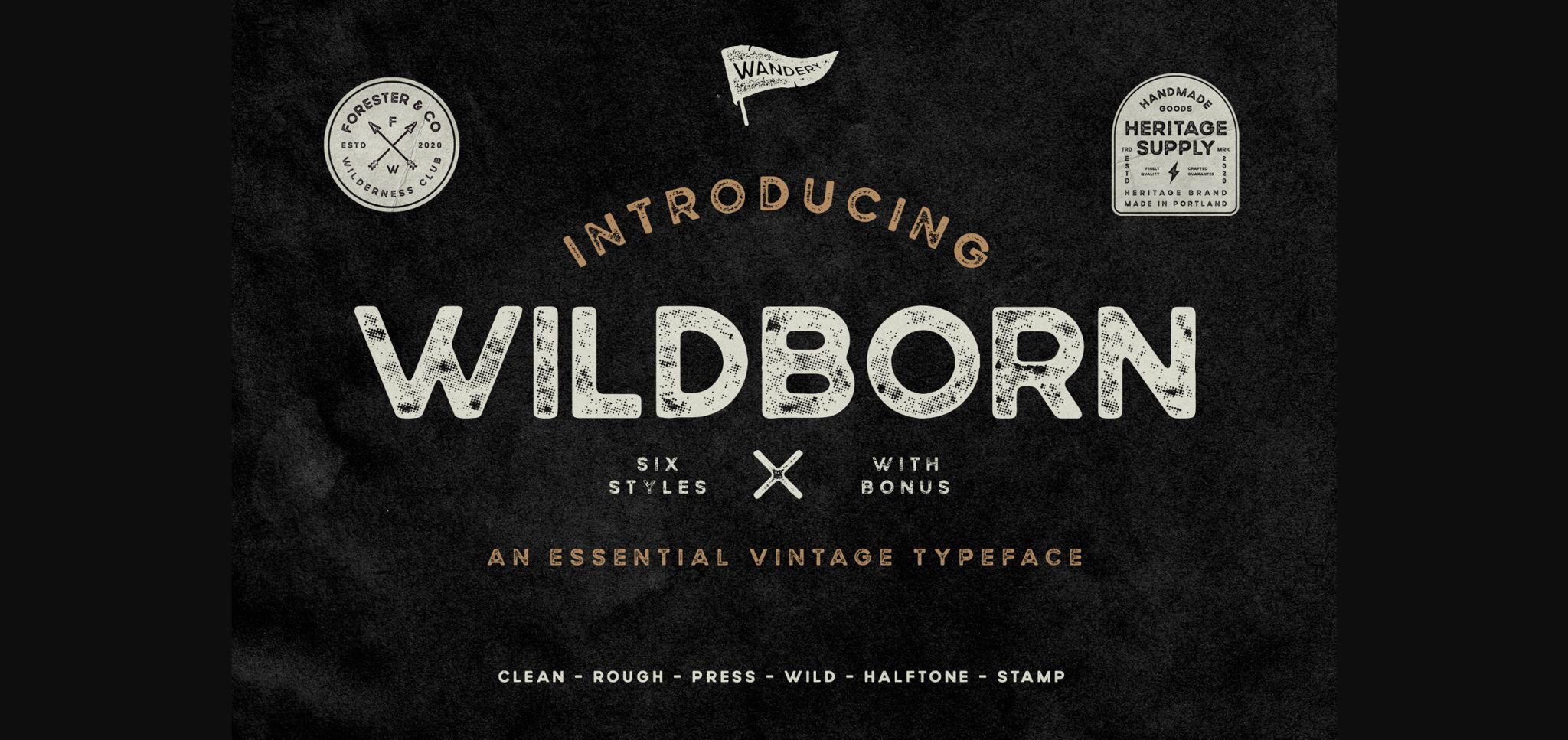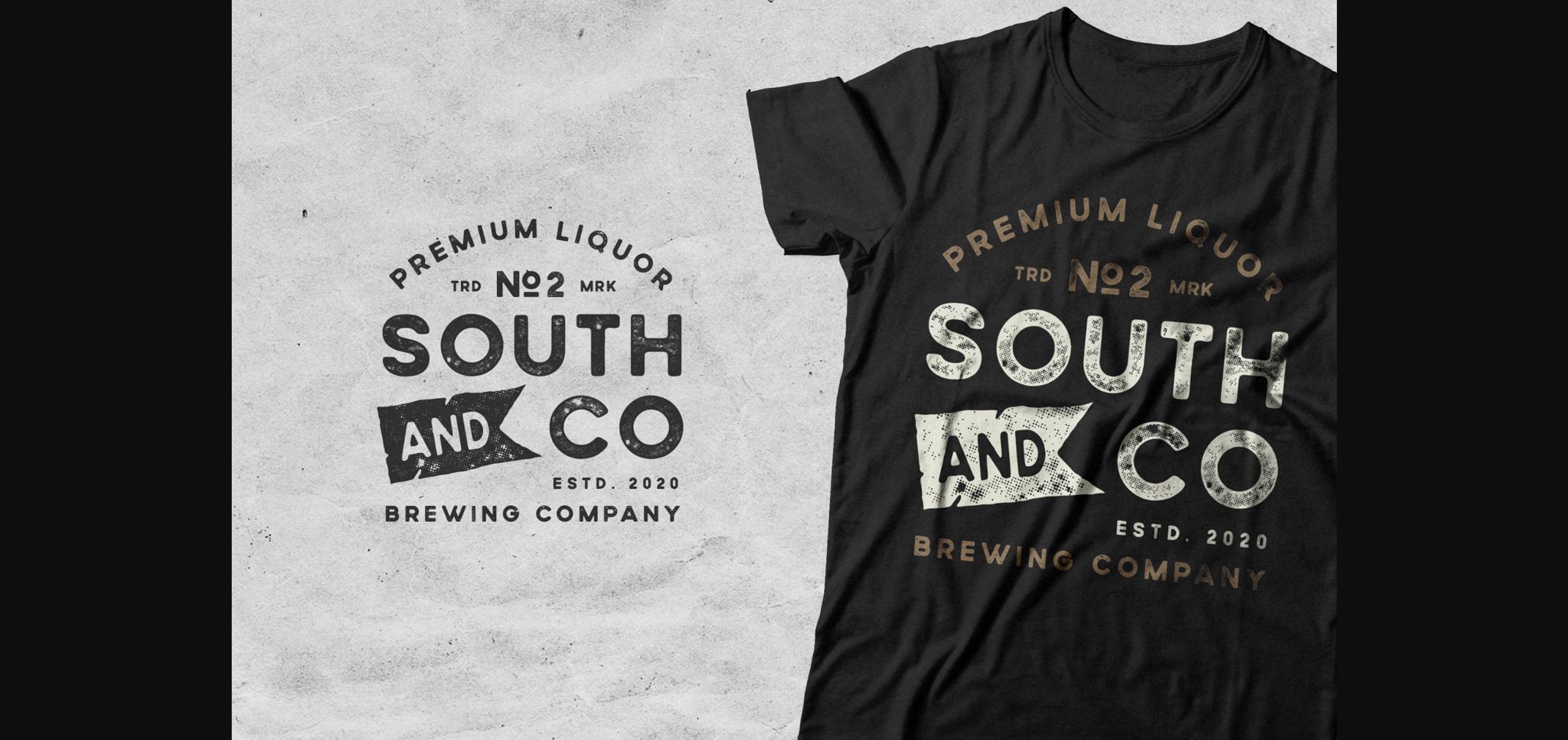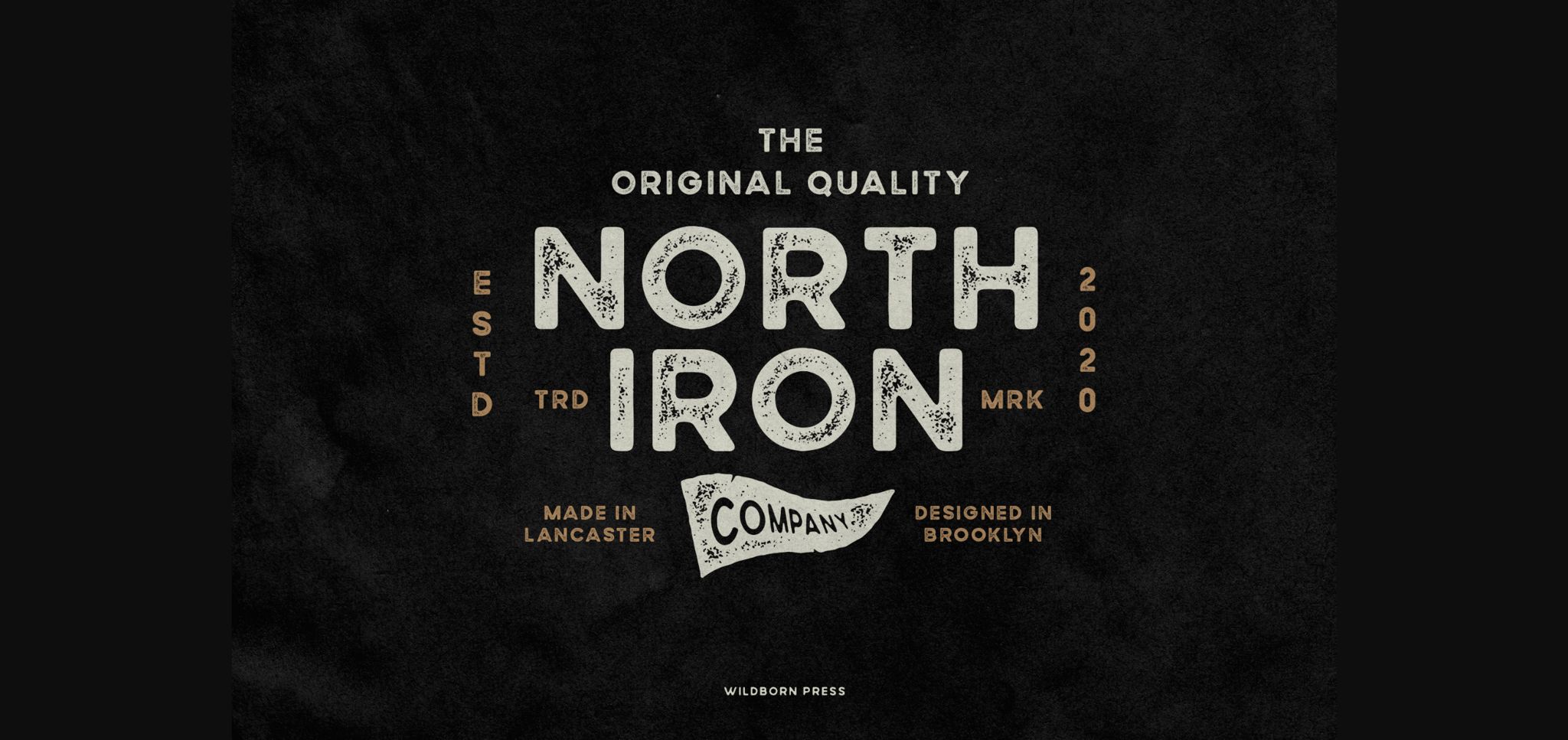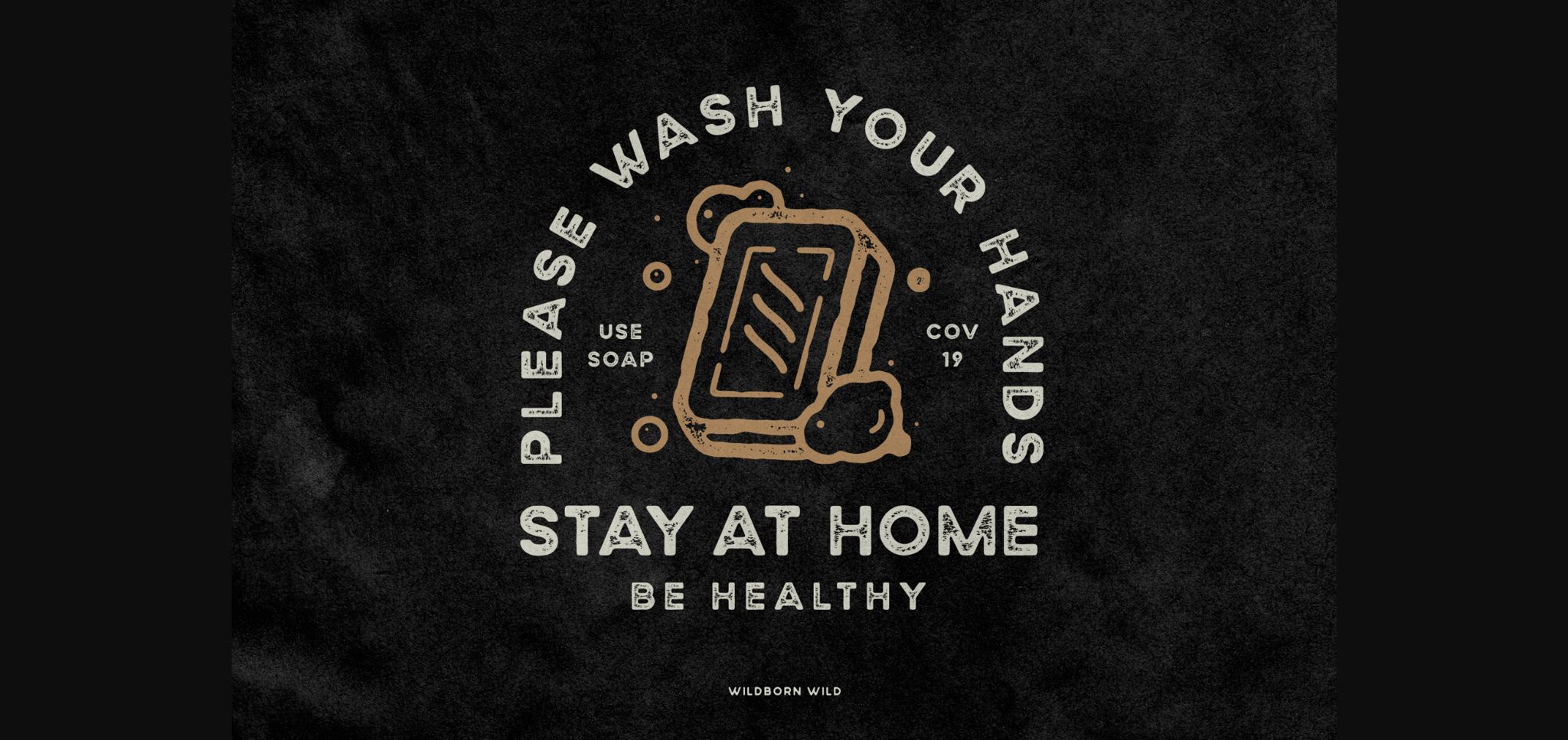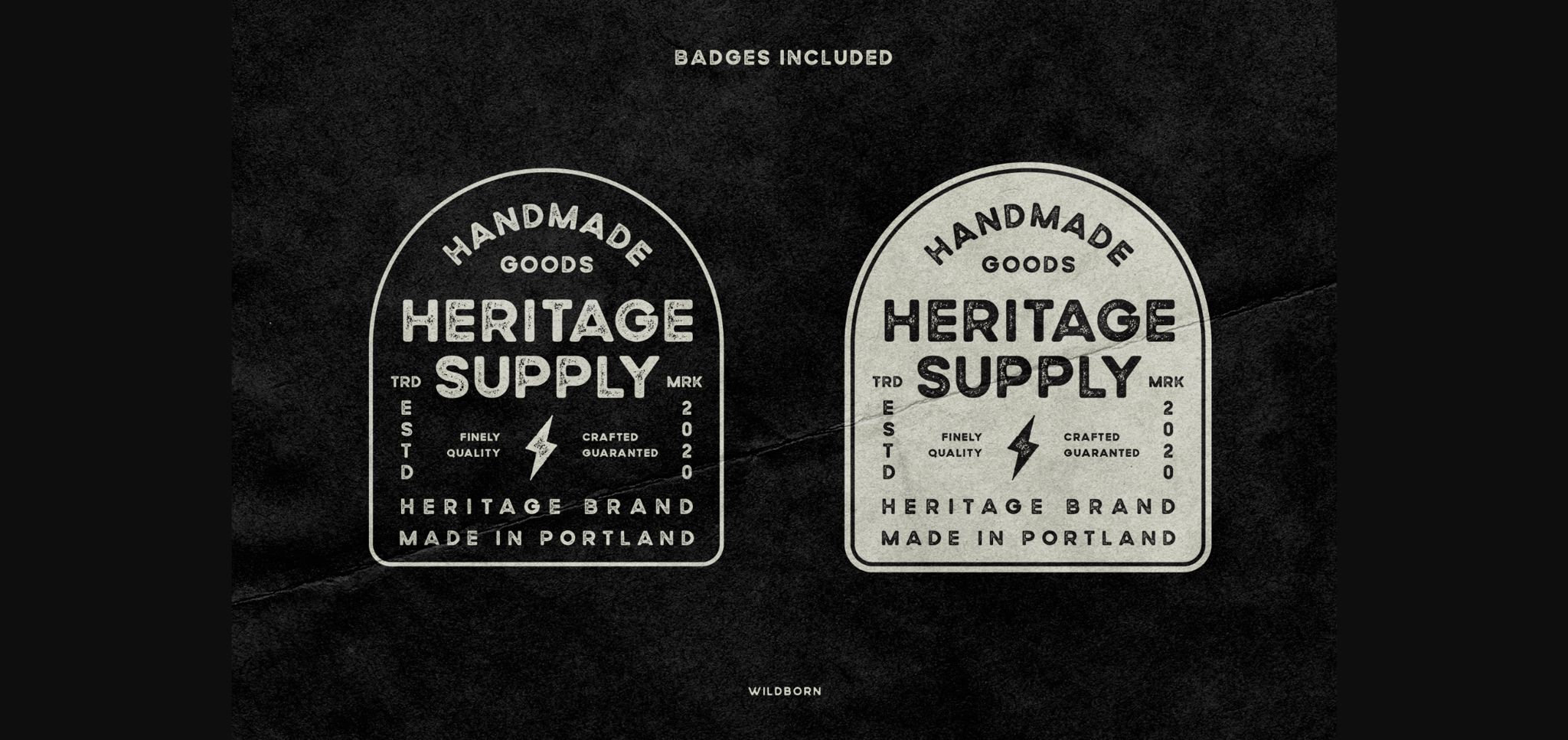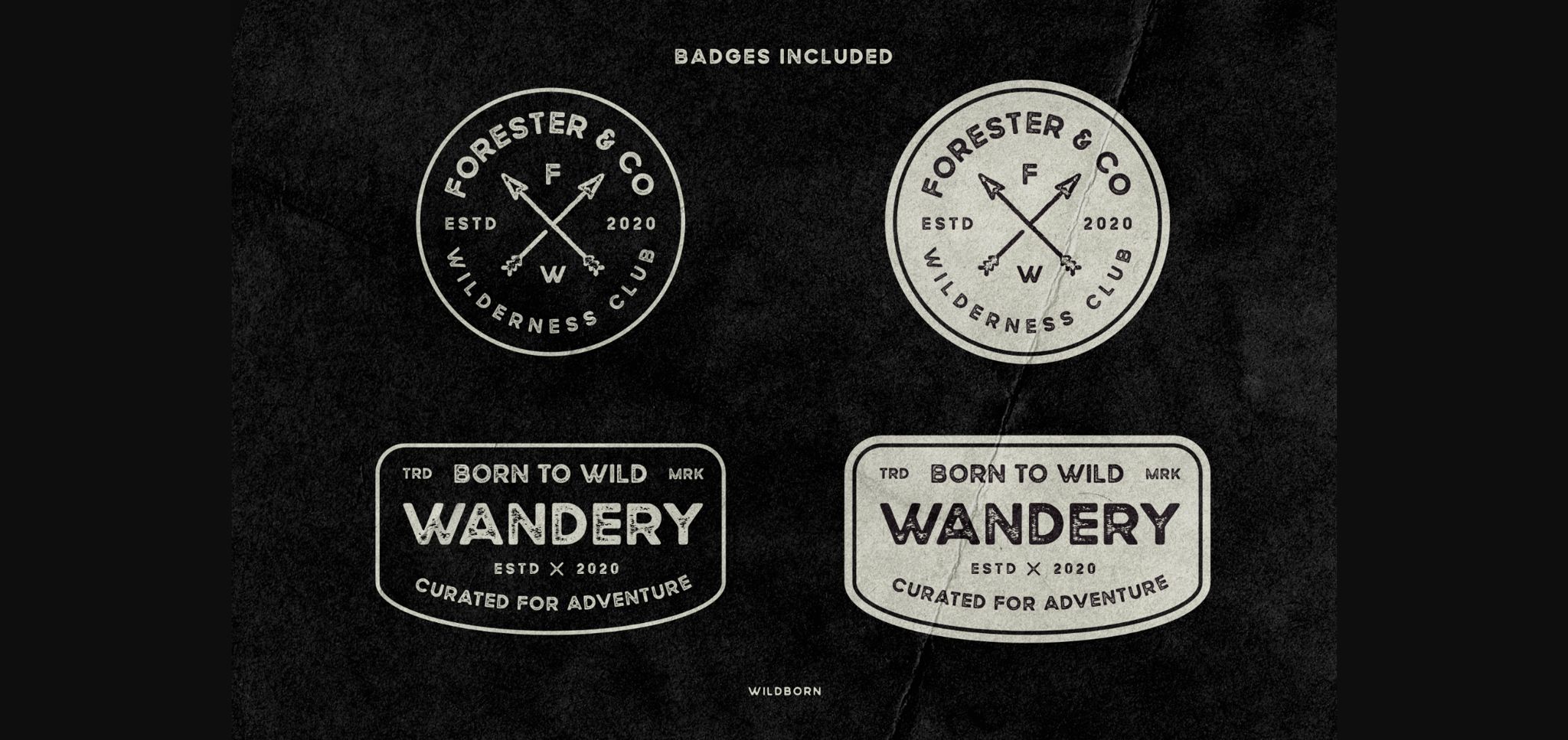
Wildborn Font
About Wildborn Font
Wildborn is a vintage and strong sans serif font. It comes in 6 amazing font styles and 10 vintage logo templates. Combine these styles and use it for typography designs, covers, labels, badges, quotes, apparel designs, and much more!